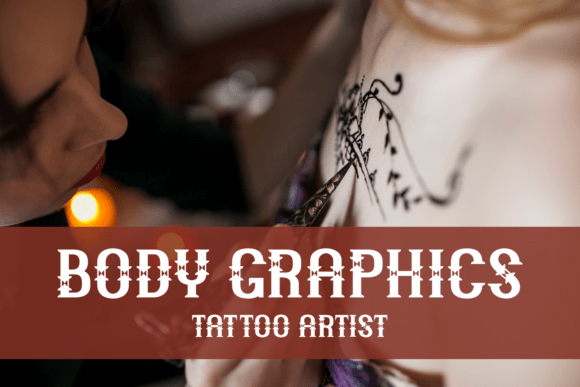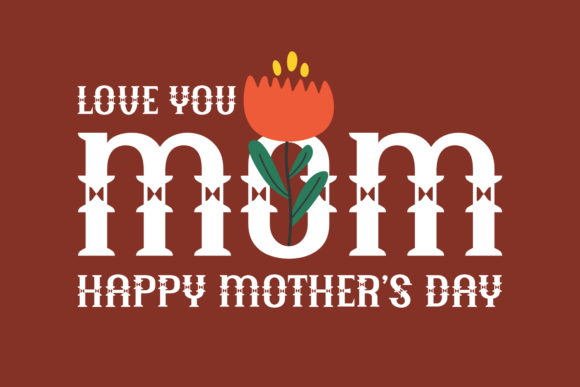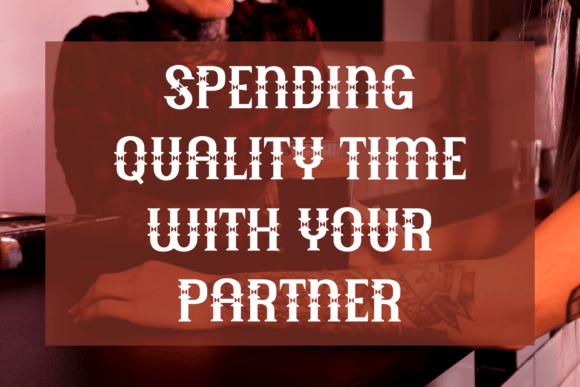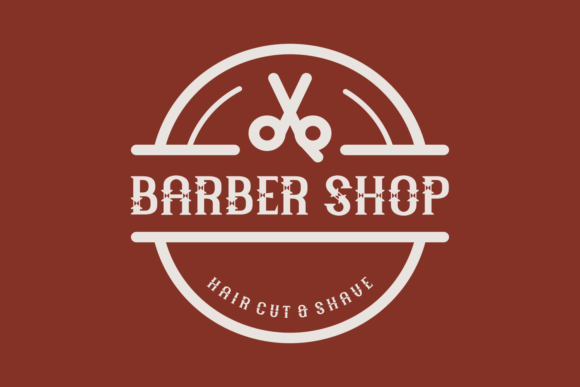
Introduction to Inked Mama Font
Immerse yourself in the world of typography with ‘Inked Mama’.
This unique font skillfully blends the dark, dramatic allure of Blackletter and Gothic styles with the warmth and familiarity of Mama Font It’s a creative, multilayered font that seamlessly marries Vintage and Retro with Modern and Unique elements.
Key Features of Inked Mama Font
Why Choose Inked Mama Font?
Inked Mama Font offers exceptional quality and versatility, making it a valuable addition to your design toolkit. Whether you’re creating for personal projects or commercial use, Inked Mama Font delivers professional results.